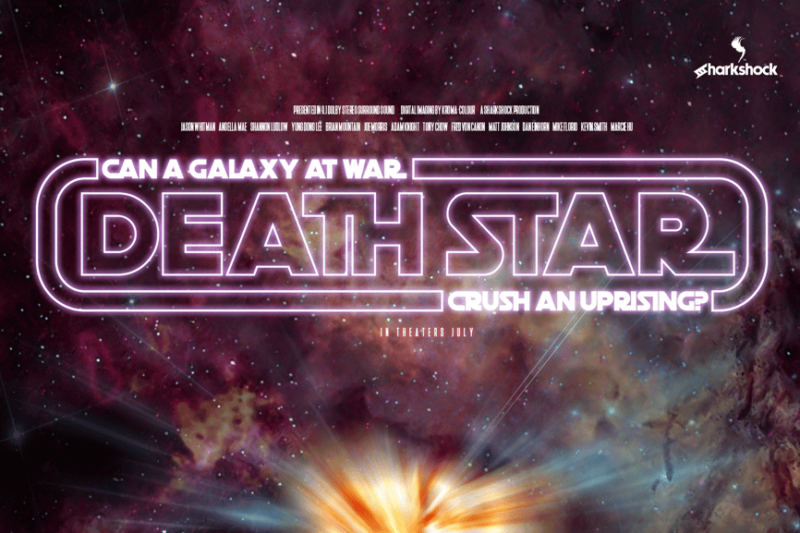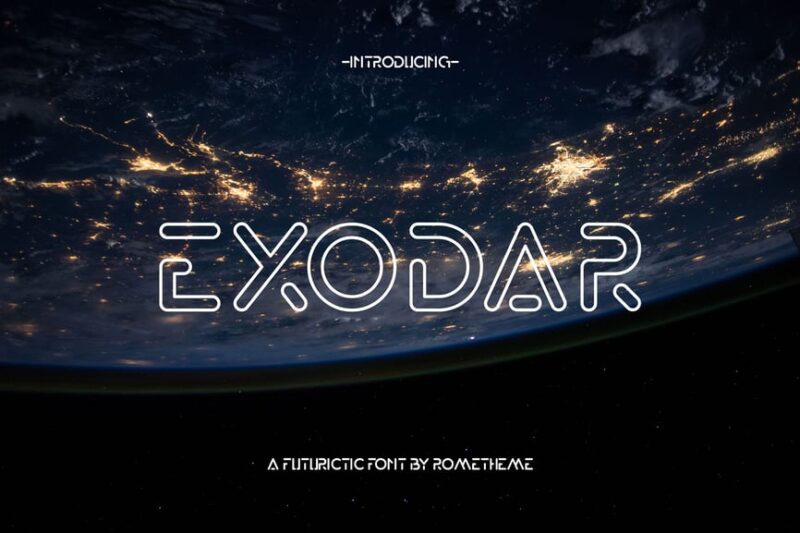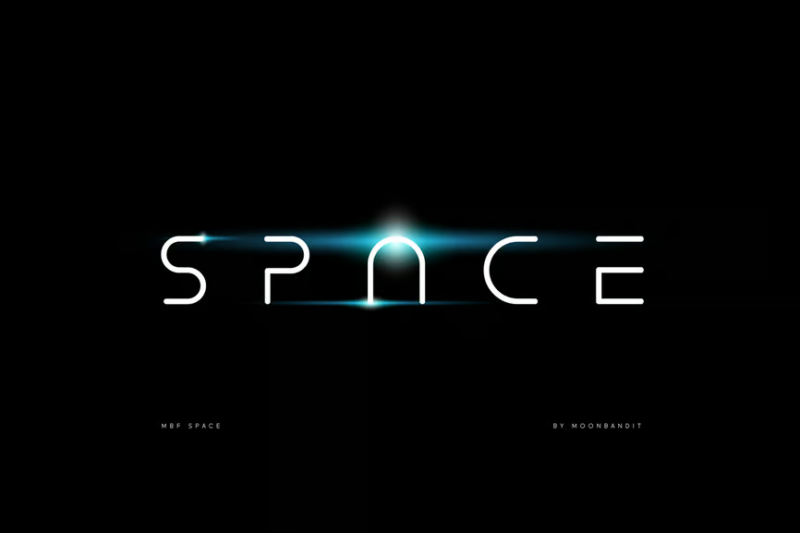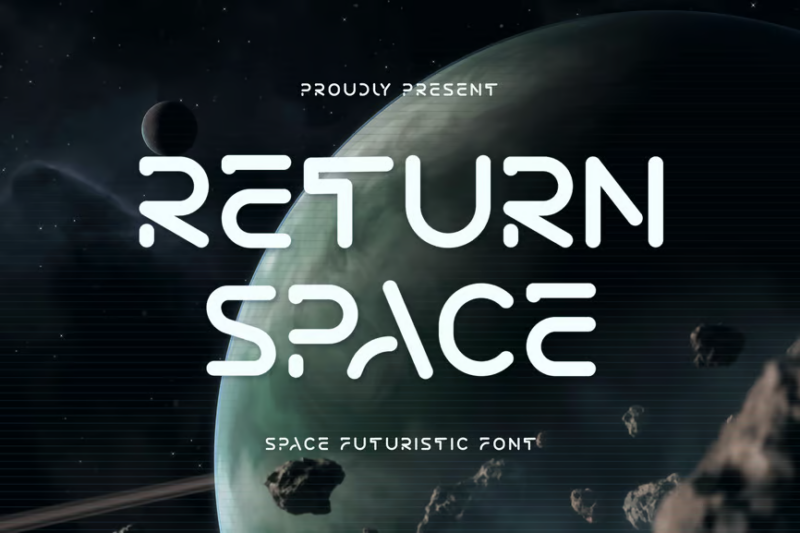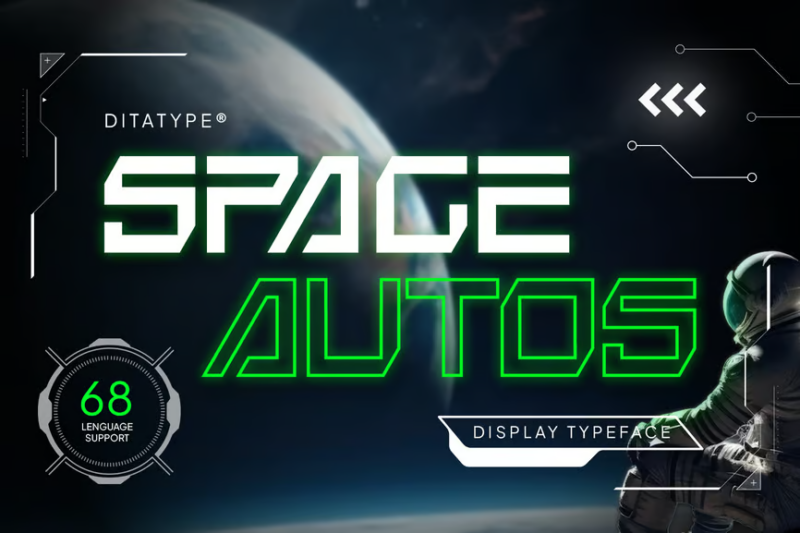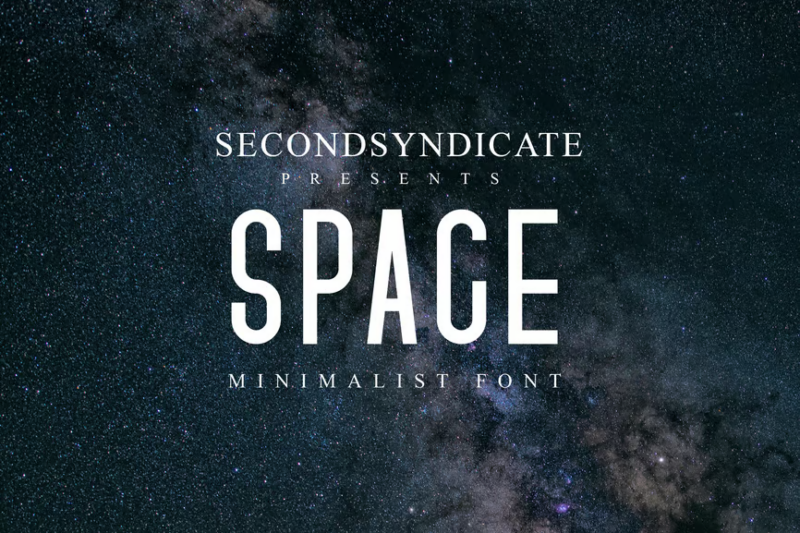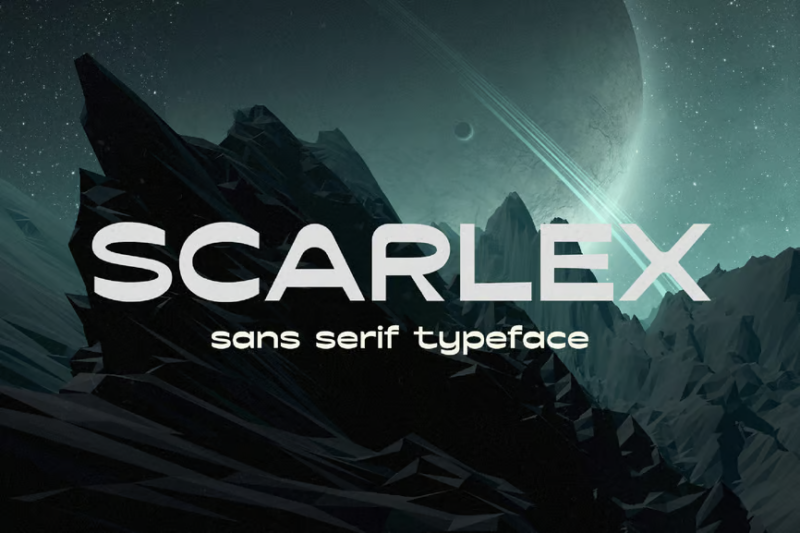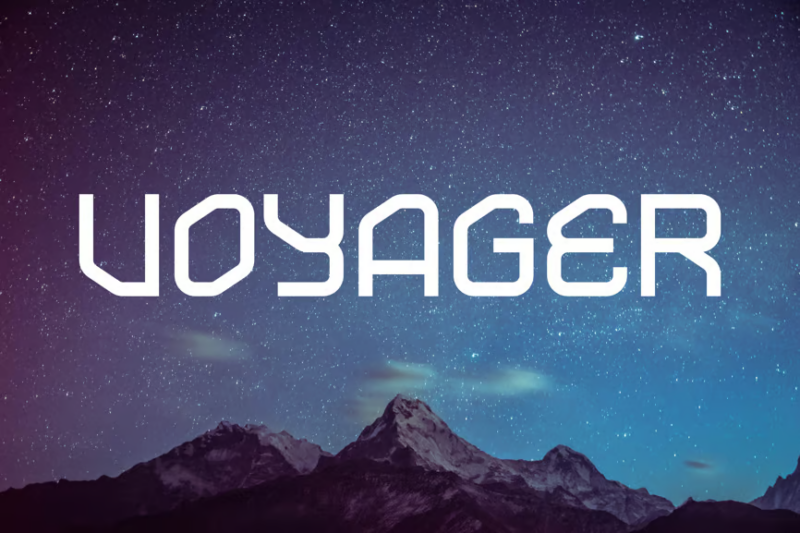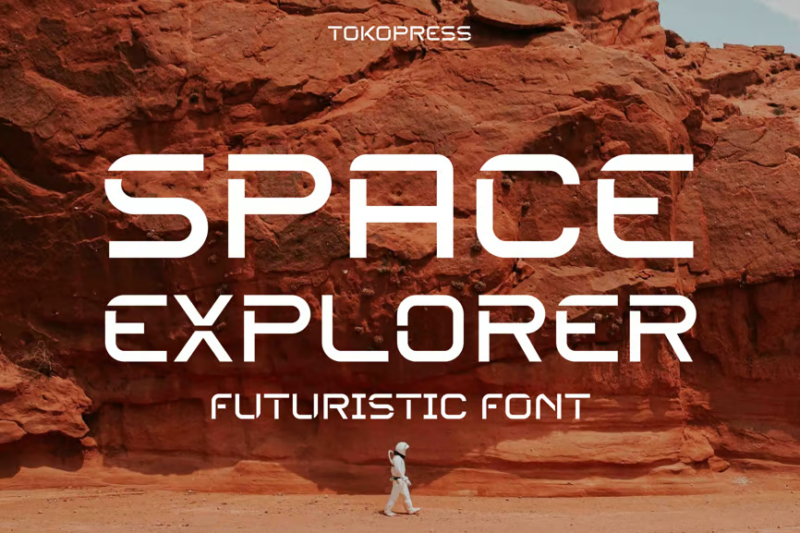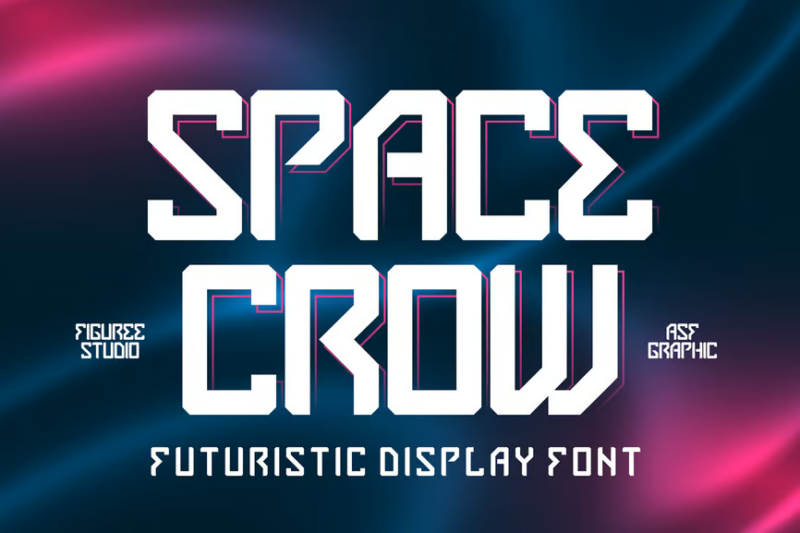
Perfect for creating galactic designs for fan projects, themed parties, and more. Our tool features the beloved Star Wars font style, inspired by the iconic opening crawl and logo that defined generations of fans.
Create Star Wars-Style Epic Text in Seconds
More Star Wars-Inspired Fonts to Download
If you’re looking for even more fonts, try our list of science fonts or some of our favorite Star Wars-inspired fonts below:
Death Star
Death Star is a bold, sci-fi inspired sans-serif font that captures the essence of the iconic Star Wars franchise. Its geometric shapes and sharp edges evoke a sense of futuristic technology, making it perfect for movie posters, game titles, or space-themed designs.
Exodar
Exodar is a sleek, futuristic display font that combines clean lines with subtle sci-fi elements. Its unique letterforms create a sense of otherworldly sophistication, ideal for tech companies, space-age branding, or forward-thinking design projects.
MBF Space
MBF Space is a minimalist sans-serif font with a futuristic twist. Its clean, streamlined design makes it highly readable while still evoking a sense of modernity and innovation. This versatile font is perfect for both body text and headlines in tech-oriented or space-themed designs.
Return Space
Return Space is a bold, angular decorative font that embodies the essence of futuristic design. Its sharp edges and unique letterforms create a cyborg-like aesthetic, making it ideal for sci-fi book covers, video game titles, or cutting-edge tech branding.
Space Autos
Space Autos is a stylish sans-serif font that blends automotive and space-age aesthetics. Its sleek letterforms and subtle curves suggest speed and aerodynamics, making it perfect for car brands, racing events, or futuristic transportation designs.
Space – Minimalis font
Space – Minimalis is a clean, modern sans-serif font that embodies simplicity and elegance. Its minimalist design makes it highly versatile, suitable for a wide range of applications from corporate branding to contemporary web design. The font’s subtle space-inspired touches add a unique character without compromising readability.
Scarlex
Scarlex is a retro-inspired space typeface that combines vintage charm with futuristic elements. Its bold, chunky letterforms evoke the feel of 1950s sci-fi posters while maintaining a modern edge. This font is perfect for creating nostalgic space-themed designs or adding a retro-futuristic flair to branding projects.
Voyager
Voyager is a sleek, futuristic space font that captures the essence of interstellar exploration. Its clean lines and unique letterforms create a sense of technological advancement and cosmic wonder. This sans-serif typeface is ideal for sci-fi book covers, space-themed event promotions, or forward-thinking tech brands.
SPACE EXPLORER
SPACE EXPLORER is a bold, tech-inspired futuristic font that commands attention. Its sharp angles and strong geometric shapes evoke a sense of advanced technology and space-age innovation. This typeface is perfect for headlines, logos, and designs related to science, technology, or space exploration.
Space Crow
Space Crow is a distinctive decorative font that blends futuristic elements with a touch of mystery. Its unique letterforms feature sharp edges and unconventional shapes, creating an otherworldly aesthetic. This font is ideal for sci-fi book titles, alien-themed designs, or any project requiring a bold, futuristic display typeface.
Eternals
Eternals is a captivating futuristic space display typeface that combines sans-serif simplicity with decorative elements. Its clean lines and subtle sci-fi touches make it versatile for both body text and headlines. This font is perfect for creating logos, posters, or branding materials for tech companies, space agencies, or futuristic entertainment projects.
Spacer
Spacer is a modern technology font that captures the essence of Y2K aesthetics with a contemporary twist. Its clean, geometric shapes and subtle tech-inspired details make it perfect for digital-focused designs. This sans-serif typeface is ideal for tech startups, software interfaces, or nostalgic Y2K-inspired graphics.
Cosmogen
Cosmogen is an eye-catching decorative font that embodies the vastness and mystery of the cosmos. Its unique letterforms blend organic shapes with digital precision, creating a truly otherworldly aesthetic. This typeface is perfect for space-themed event posters, sci-fi book covers, or any design project requiring a bold, futuristic statement.